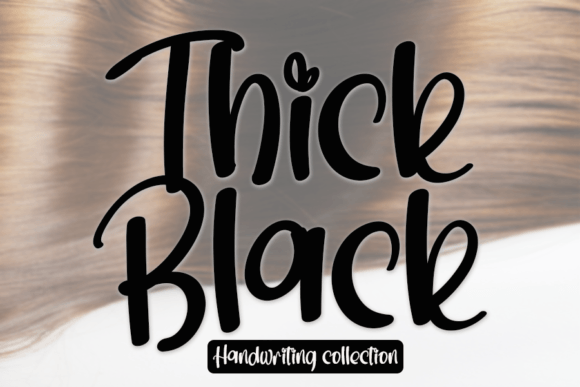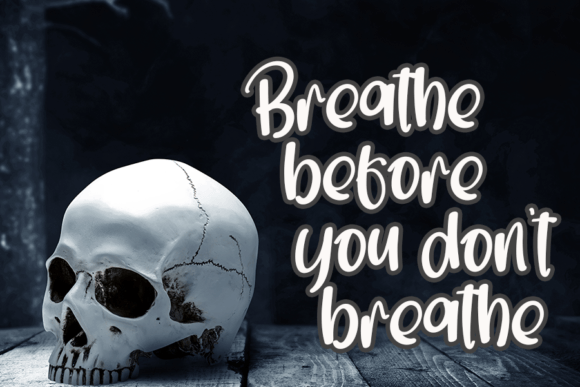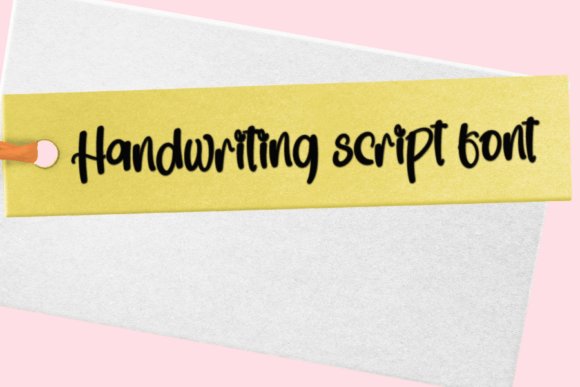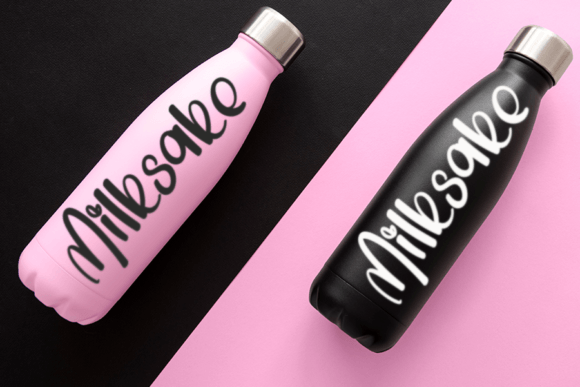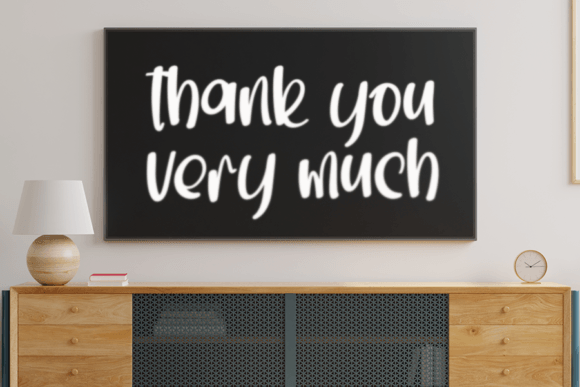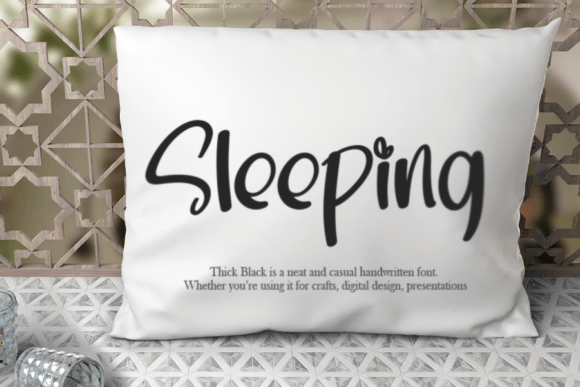
Thick Black Font
Make your designs stand out with the Thick Black font. This gorgeous handwritten script combines elegance and boldness with its curvy lines and smooth flow. It is the perfect choice for product packaging, branding projects, magazine covers, social media posts, weddings, and any creative work that needs a sweet, handwritten touch.
The Thick Black font offers thick, elegant strokes that bring a strong yet refined character to your projects. Its unique style allows you to add personality and sophistication to every design, making it ideal for professional and personal use.
You can use the Thick Black font for a variety of applications, including packaging design, logos, advertisements, social media graphics, wedding invitations, and more. Its bold yet graceful lines make your text easy to read while adding visual interest.
Despite its bold nature, the Thick Blackfont maintains excellent readability at various sizes. Whether you use it for striking headlines or elegant accents, this font ensures your message is clear and stylish.
Using the Thick Blackfont will add a touch of luxury and charm to your designs. If you want a handwritten font that is both bold and elegant, this font is an excellent addition to your font collection.
In summary, the Thick Blackfont is an elegant and bold handwritten script. Perfect for product packaging, branding, social media, weddings, and more, it adds a unique and sophisticated touch to every project. Download it today and elevate your creative work with Thick Black.